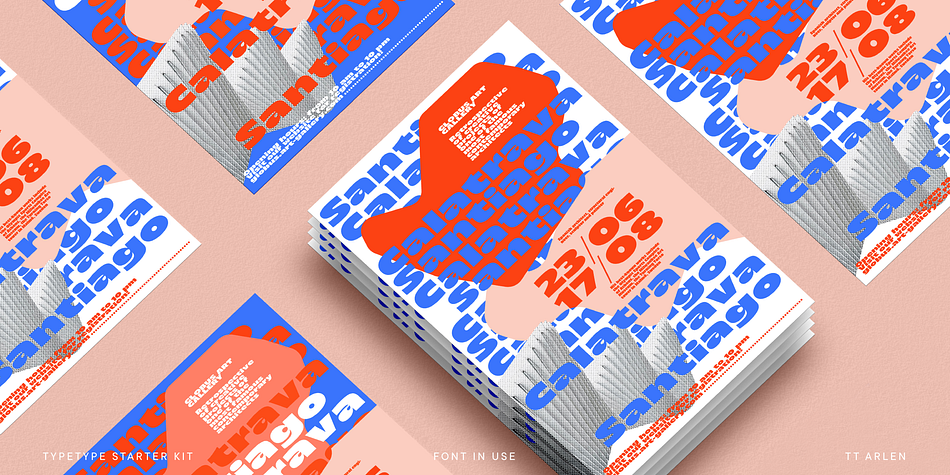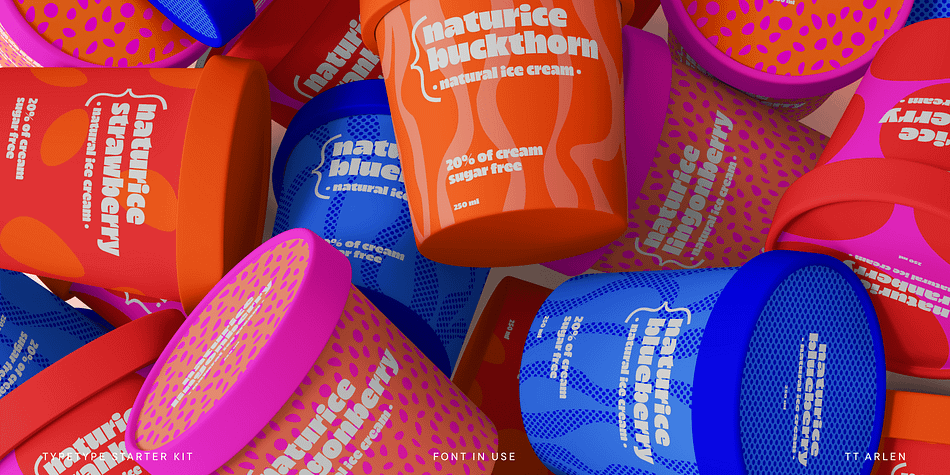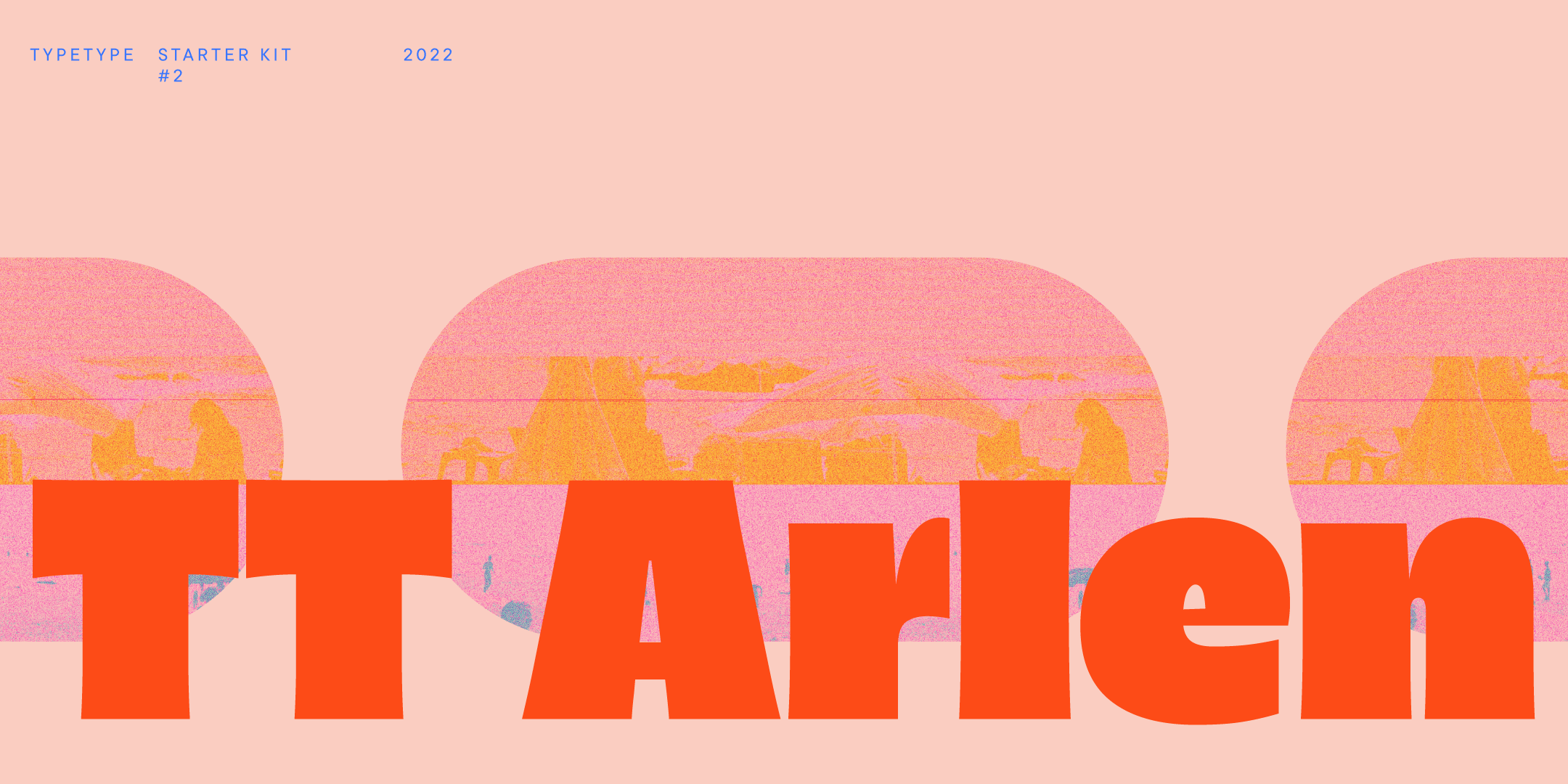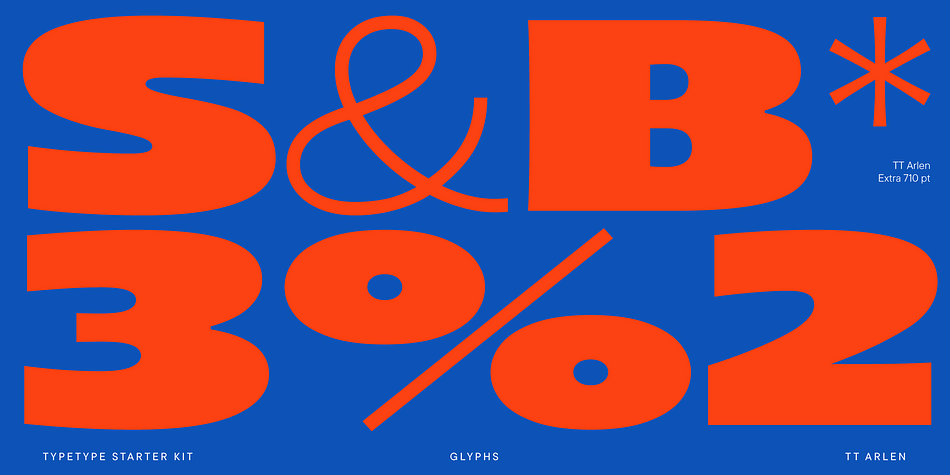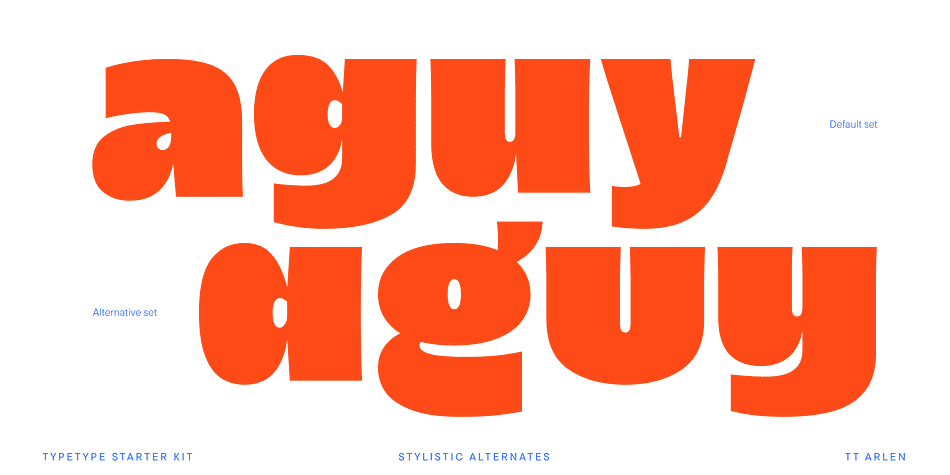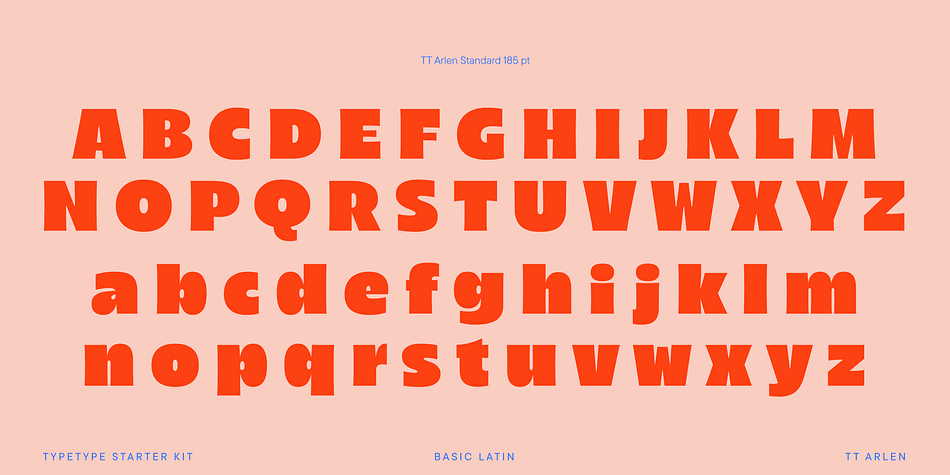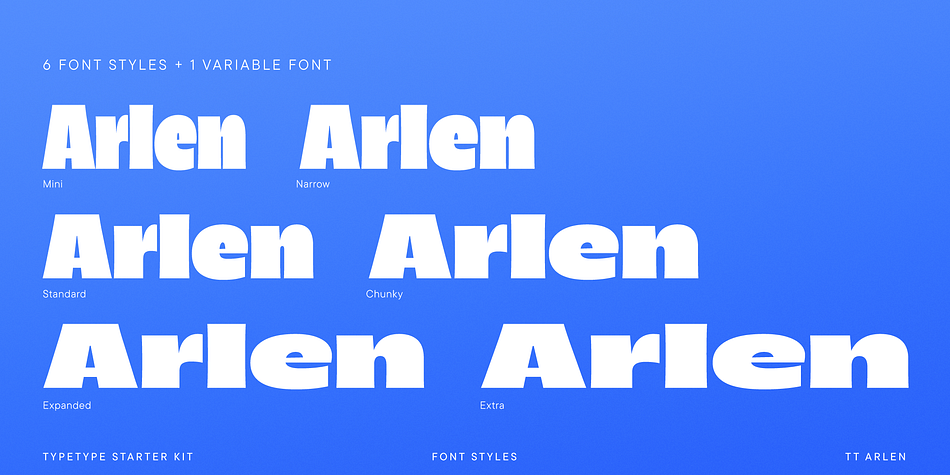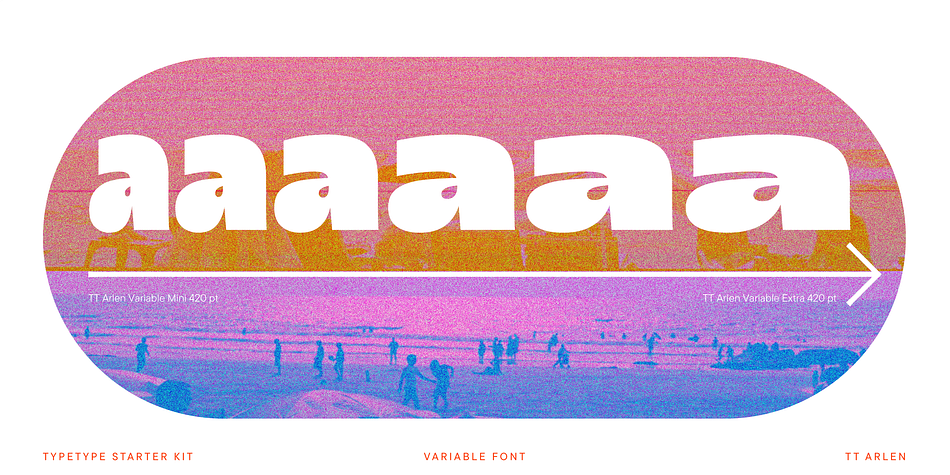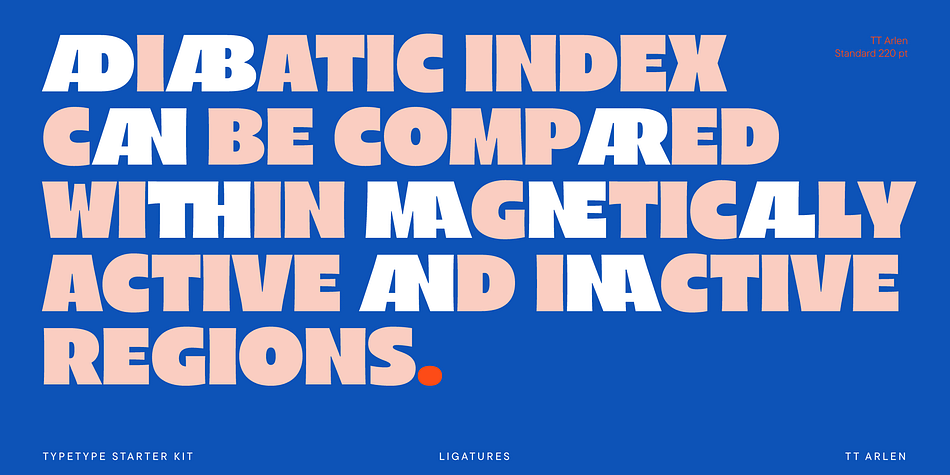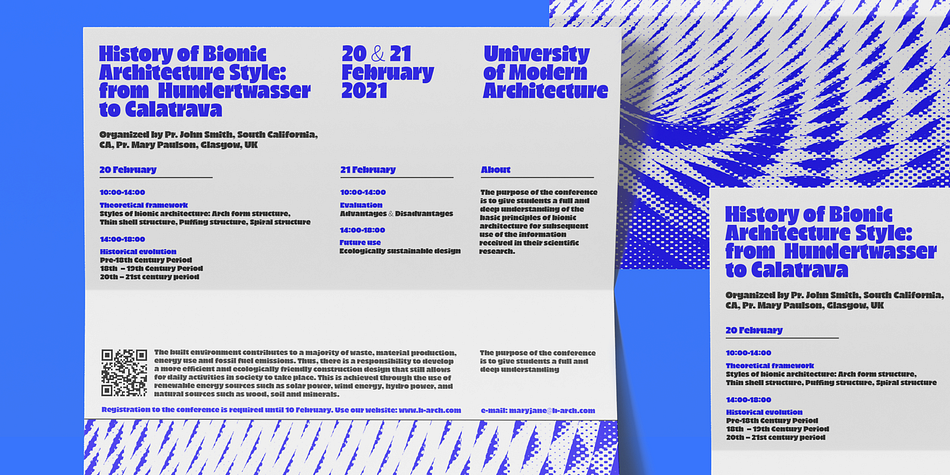
TT Arlen
Designed by Eugene Tantsurin and TypeType Team, TT Arlen is a display sans and sans serif font family. This typeface has seven styles and was published by Typetype.
Meet a bright and expressive grotesque with a delicate yet daring character!
The concept of TT Arlen evolved from a small sketch into a full-fledged font family with strong contrast, small inter-letter spacing and original visual presentation.
TT Arlen is a catchy sans-serif suitable for branding and headings. Depending on the context of the project, the typeface can change its character from playful to aesthetically delicate. TT Arlen is based on a humanist grotesque suggested by the open apertures and friendly mood. However, in the first place, our font family attracts the viewer with its display character, not its construction.
Visually, TT Arlen is easy to recognize among other humanist grotesques. Large letters with a minimum of white, stem thickenings, little contrast between uppercase and lowercase, high setting density. At the same time, diacritics are quite subtle, which gives font family additional originality. Another visual trick is the lowercase i and j, which jump into the line.
The TT Arlen font family consists of 7 styles: 6 widths and 1 variable font. Each style contains 587 glyphs. The font family contains 21 OpenType features, where, in addition to the standard ones, there are an additional set of characters, thick diacritics instead of thin ones, alternative glyphs (single storey letter a, modified form g, y, u), jumping into the i and j strings. TT Arlen contains a large number of ligatures.